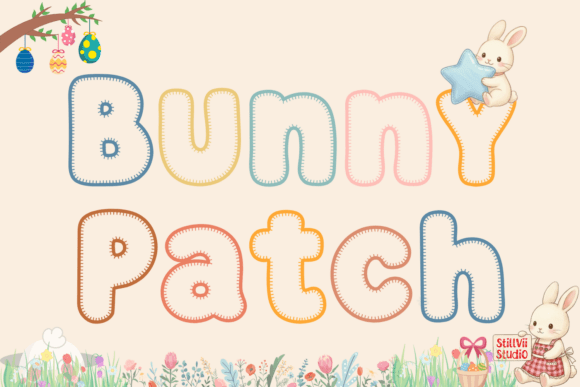
Bringing Cozy Charm to Your Projects with Bunny Patch Font
I’ll never forget the time I was working on a custom nursery wall art project for a client’s baby girl. I wanted to create a whimsical, farmhouse-inspired design that felt warm and inviting. As I scrolled through font after font, I just couldn’t find the perfect fit. That’s when I stumbled upon Bunny Patch, a delightful faux stitch font that instantly captured the cozy, hand-crafted feel I was looking for.
As a designer and crafter, I’m always on the lookout for fonts that can help bring a personal touch to my projects. Bunny Patch is an adorable patchwork typeface designed specifically for crafters and makers. With its imperfectly perfect dashed inner lines, this bouncy, bubbly font gives your words a warm, quilted aesthetic that’s perfect for a variety of creative projects.
What I Love About Bunny Patch Font
- ✨ Cozy, hand-crafted feel: Bunny Patch instantly adds a warm, organic touch to your projects, making them feel like they were stitched together with love.
- 🌟 Perfect for crafty projects: From apparel to sublimation, vinyl crafts to printables, Bunny Patch is the perfect fit for a wide range of creative endeavors.
While I adore Bunny Patch, there are a few things to keep in mind:
- 🤔 Limited multilingual support: If you need to create text in multiple languages, you may want to double-check that Bunny Patch supports the characters you need.
- ⚠️ May not be suitable for body text: Due to its decorative nature, Bunny Patch is best used for headlines, titles, or short phrases rather than lengthy blocks of text.
The Story Behind Bunny Patch Font
Bunny Patch was designed with crafters and makers in mind. The creator wanted to capture the warm, hand-crafted feel of traditional farmhouse embroidery, without the hassle of actual stitching. The result is a font that’s perfect for adding a personal touch to a wide range of creative projects.